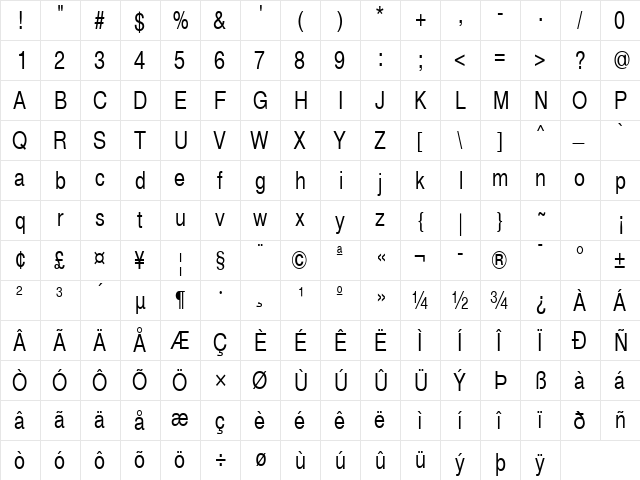
Helsinki Narrow Regular
Design Context for Helsinki Narrow Typeface
Helsinki Narrow offers clean, dependable letterforms without strong stylistic allegiance, making it a practical choice for designers who need flexibility. The condensed width makes it efficient for tight spaces without sacrificing legibility.